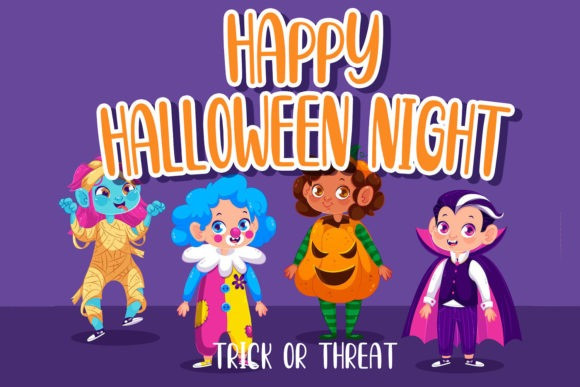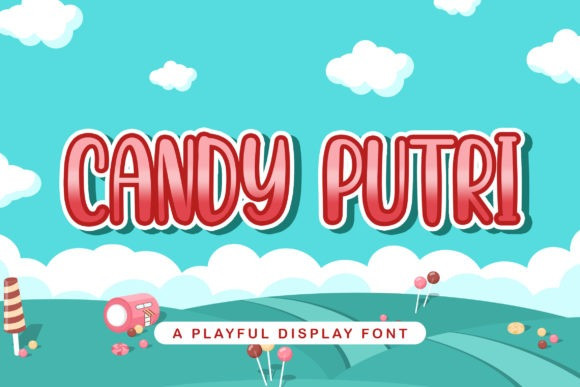
Candy Putri Font
Candy Putri Font is a fun display font. Playful and fresh, this font will be a hit for each of your children’s designs or school projects! Add it to your most creative ideas, and watch how they come alive!